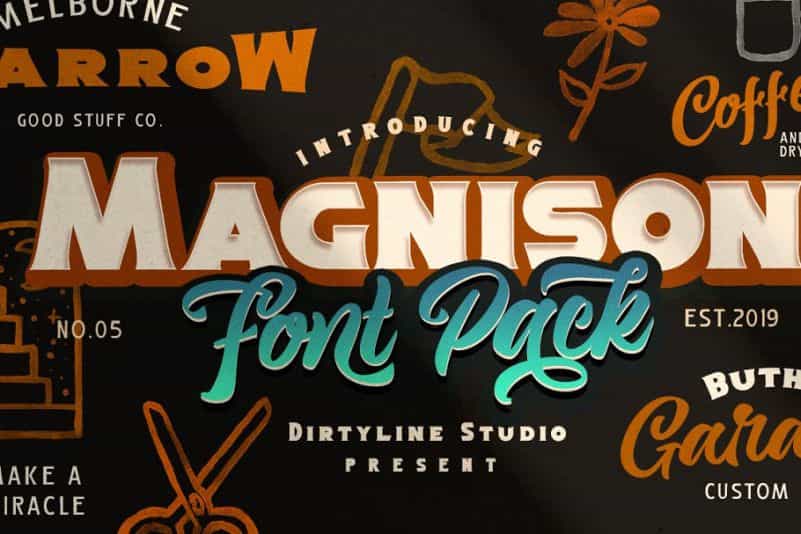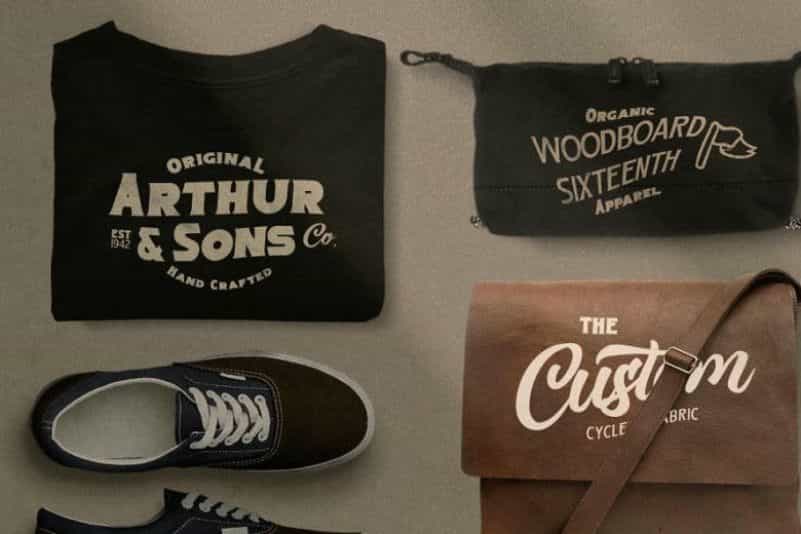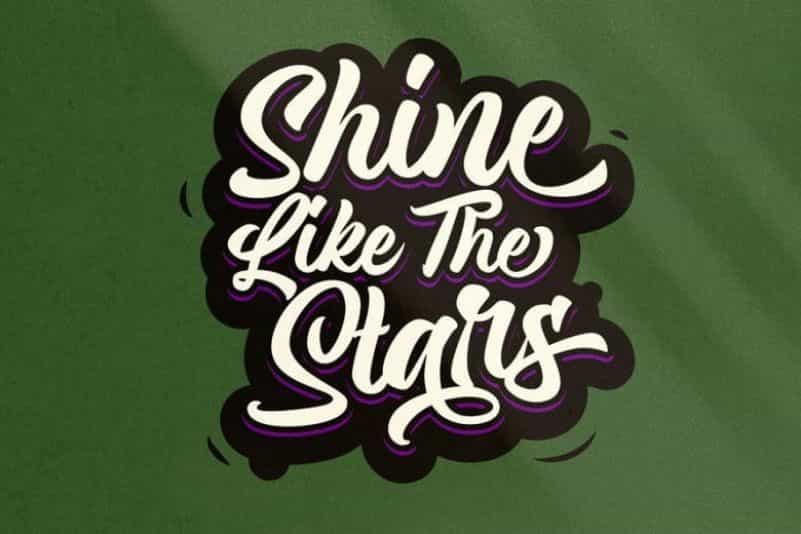
Discover Magnison Script Font, part of the Brush Calligraphy collection—a versatile and unique font perfect for adding a personal touch to your projects. Download it for free and enjoy crafting designs with style, from invitations to social media posts. This font is available exclusively for personal use, giving you the freedom to create without limits. Unlock your creativity with Magnison Script Font today!
Magnison Font Collection is a combination of a script and serif font with bold and light, inspired by retro. I made with personality touch every single curve. Hopelly, this can make inspire you from your work and has a bouncy baseline It has a perfectly paired complimentary marker font , and a super handy set of bonus Illustrations, design for title, lover, sweet word & card design.